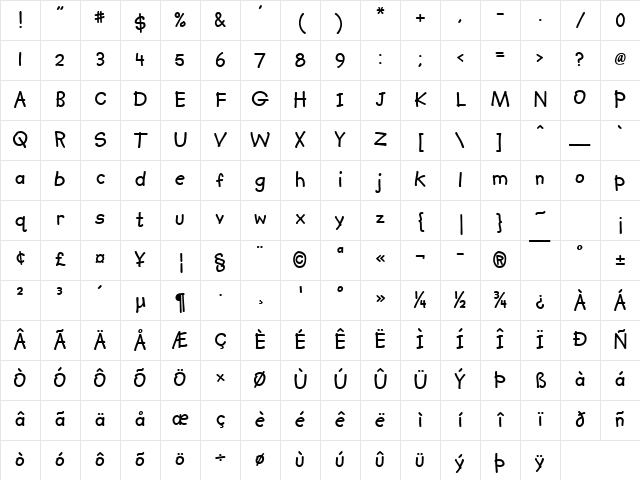
Complete Kidprint Bold glyph index. Displaying only characters natively supported by Kidprint Bold font.
Kidprint is a composed and adaptable typeface that performs quietly and consistently across a wide range of design contexts. Its bold stroke weight gives it real presence on the page.